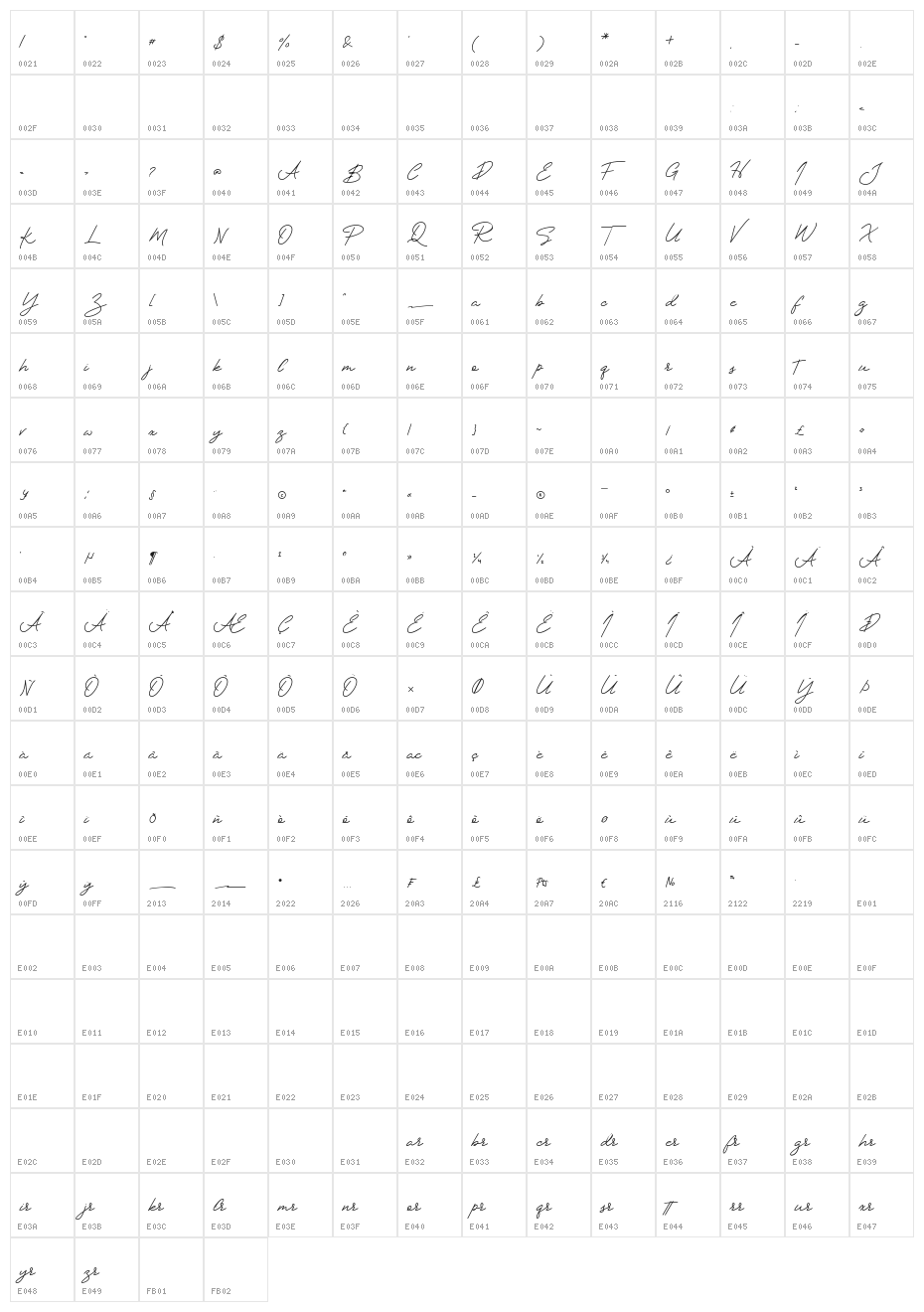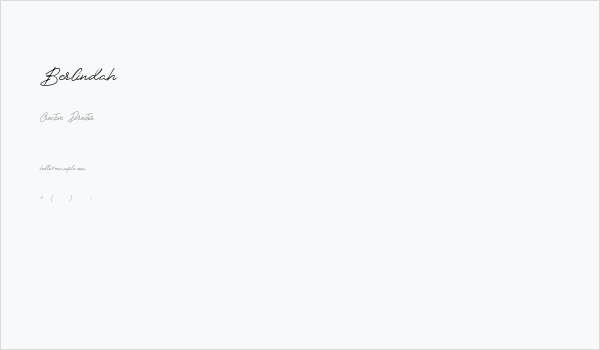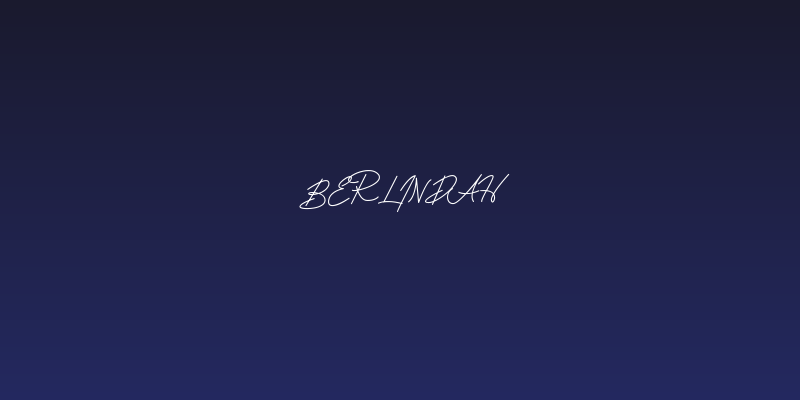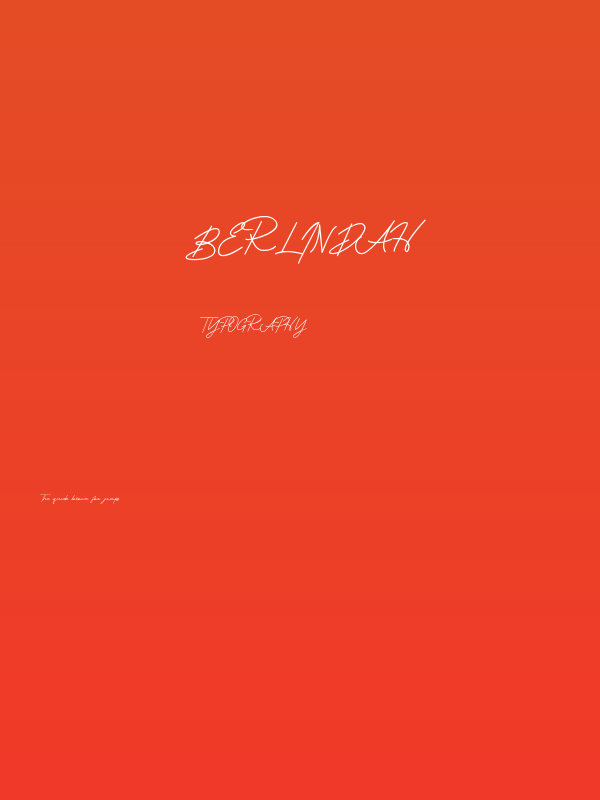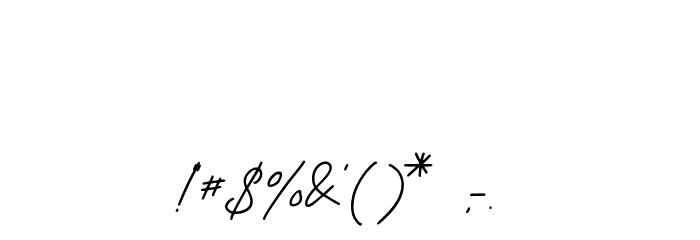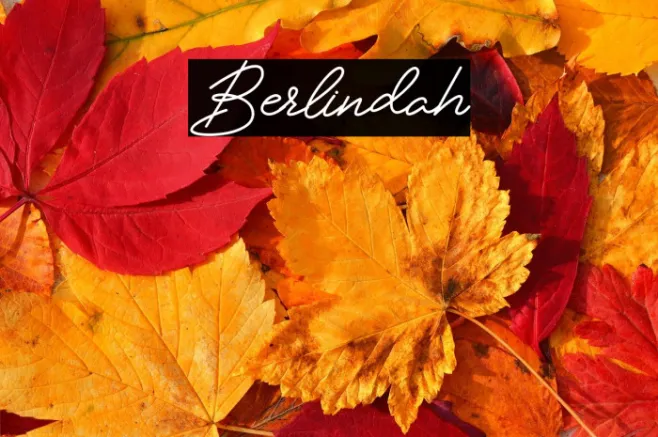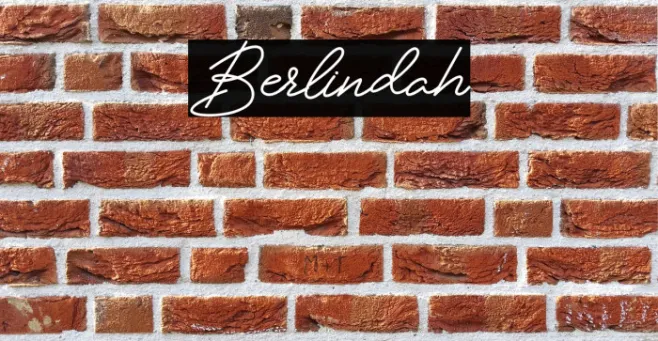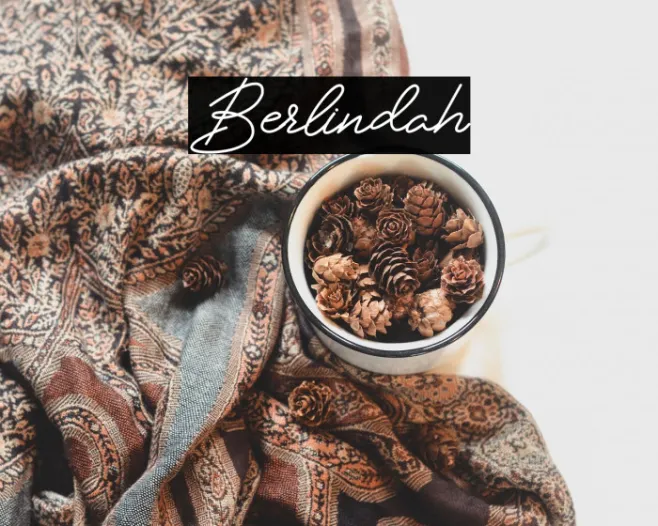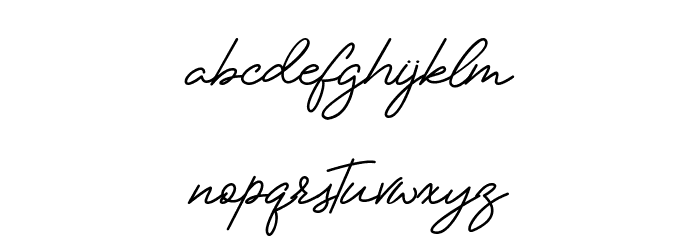
Berlindah Font
Berlindah Description
This font exudes a sophisticated and elegant handwritten style, characterized by its fluid and graceful strokes. The letters are connected in a cursive manner, creating a seamless flow that mimics natural handwriting. The uppercase letters are slightly more elaborate, with some featuring distinctive flourishes, while the lowercase letters maintain a consistent and smooth appearance. The numerals and special characters are designed to complement the overall aesthetic, maintaining the same fluidity and elegance. This font is perfect for projects that require a personal touch or a sense of refinement.